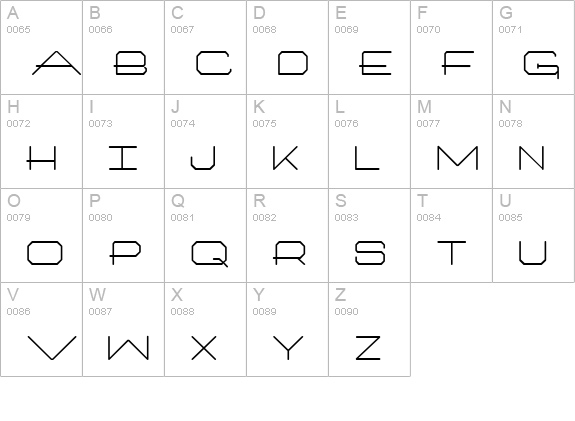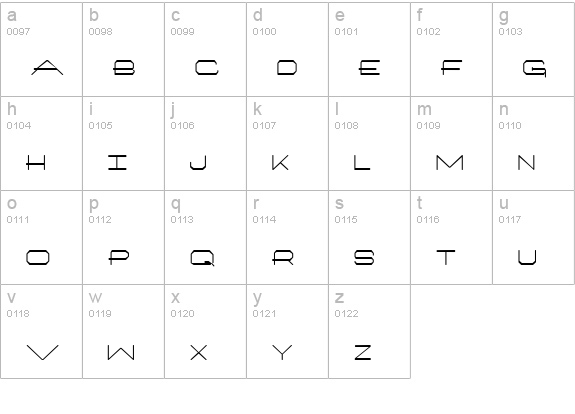
Architech font is a sleek and modern typeface that exudes sophistication and professionalism. With its clean lines and geometric shapes, this font is perfect for creating eye-catching designs for architecture, engineering, and technology-related projects. The versatility of Architech font allows it to be used in a variety of design applications, from logos to branding materials to website design. What's even better is that Architech font is available for free download at FontsMarket.com. So you can easily access this stylish font and incorporate it into your projects without any additional cost. Whether you're a graphic designer looking to add a touch of elegance to your work or a business owner seeking a refined font for your branding, Architech font is the perfect choice. Download it today and elevate your designs with this modern and sophisticated typeface.